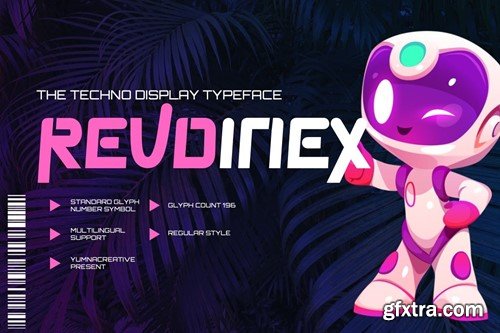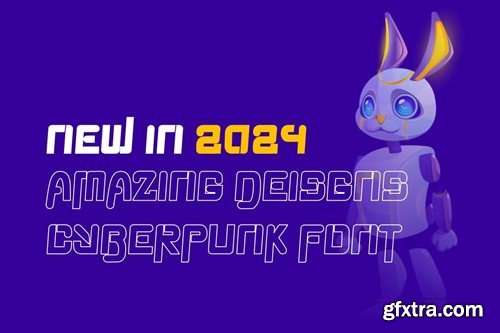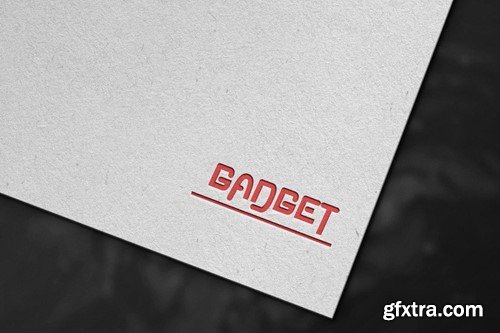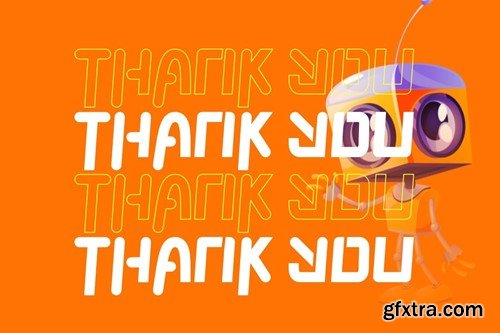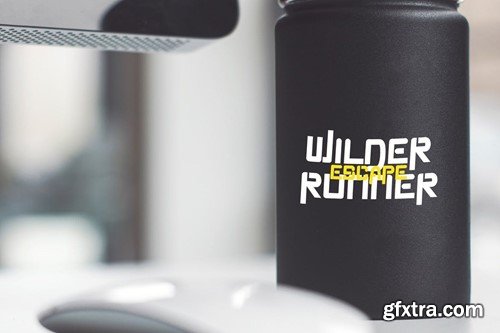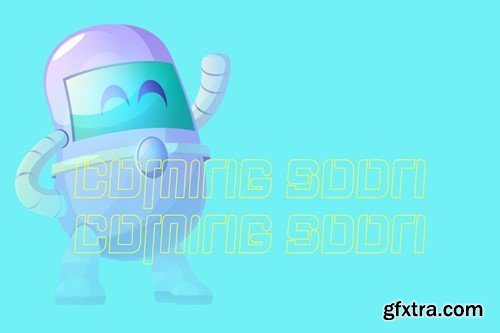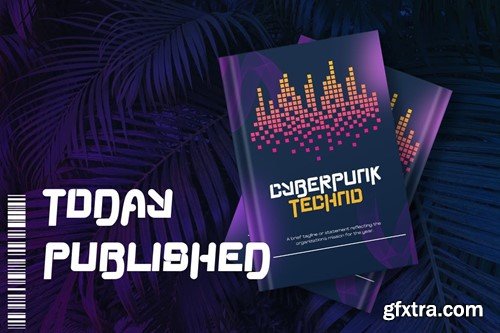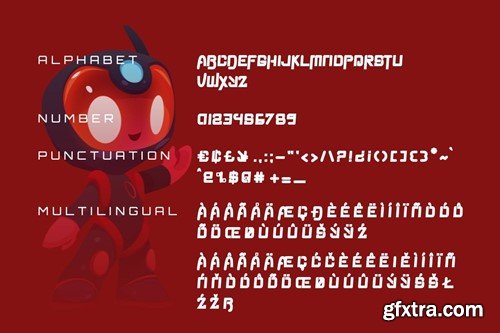
Revoinex - 现代化显示屏字体 9ZM7CS6
Introducing Revoinex - Futuristic Display Font This Font is a delicate, elegant and flowing handwritten font. It has beautiful and well as a unique blend of ligatures a letter, so that the authors compose it with a and little swirly embedding, so that a modern font is formed and ready to make a statement by adding elegant and unique flair to your next design project. Add it to your most creative ideas and notice how it makes them come alive! FEATURES FILES INCLUDED Got any questions? Drop me a line and I'll be happy to answer!
• Uppercase & Lowercase
• Numbering & Punctuation
• Multilingual Supports